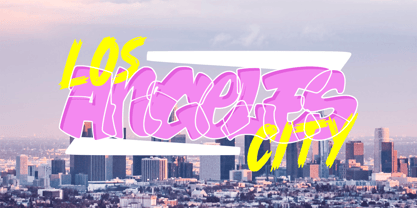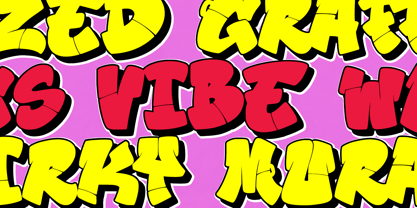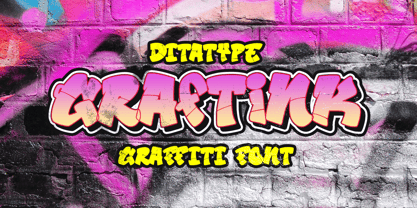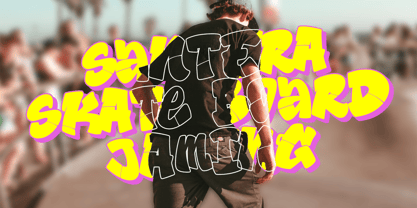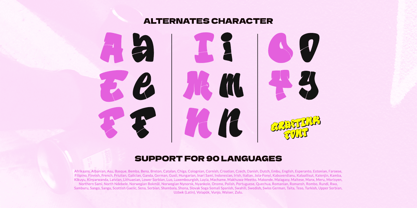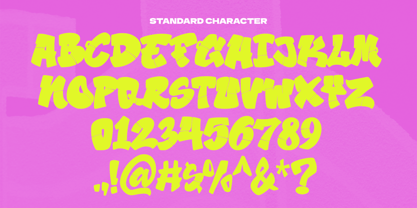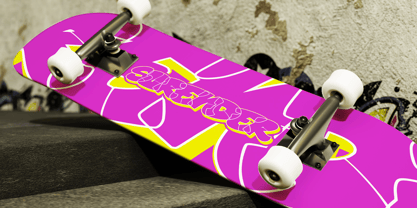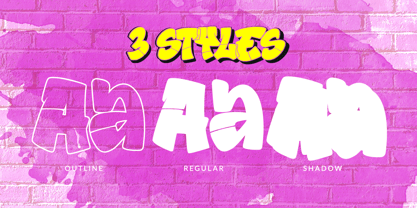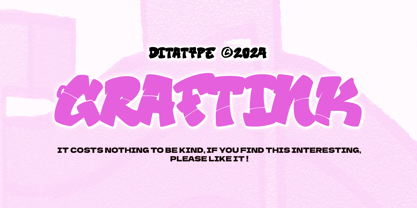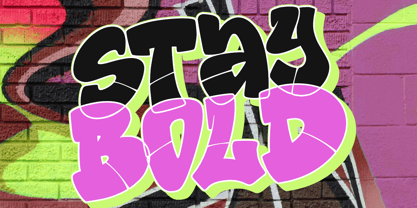
Graftink
by Ditatype
Graftink is a vibrant graffiti font that captures the essence of urban art. Designed in uppercases for bold expression. It is also made in consistent letterforms with a playful rounded bubble shape, making it perfect for dynamic and eye-catching designs. The font is enhanced with an outline and shadow style, adding depth and a three-dimensional effect that brings your creations to life. Graftink delivers a modern take on classic graffiti aesthetics, ensuring your designs stand out with style and energy. In addition, enjoy the features here.
Features:
• Alternates
• Multilingual Supports
• PUA Encoded
• Numerals and Punctuations
Graftink fits in logos, posters, branding materials, print media, and many more designs. Find out more ways to use this font by taking a look at the font preview.